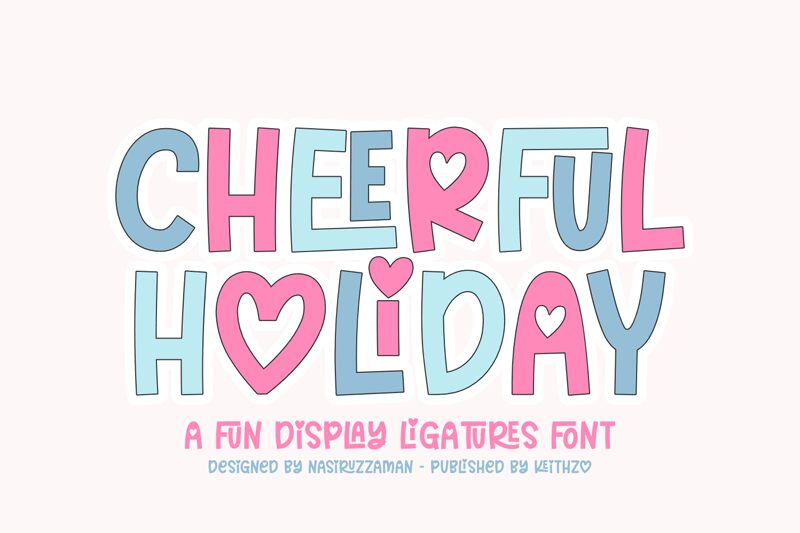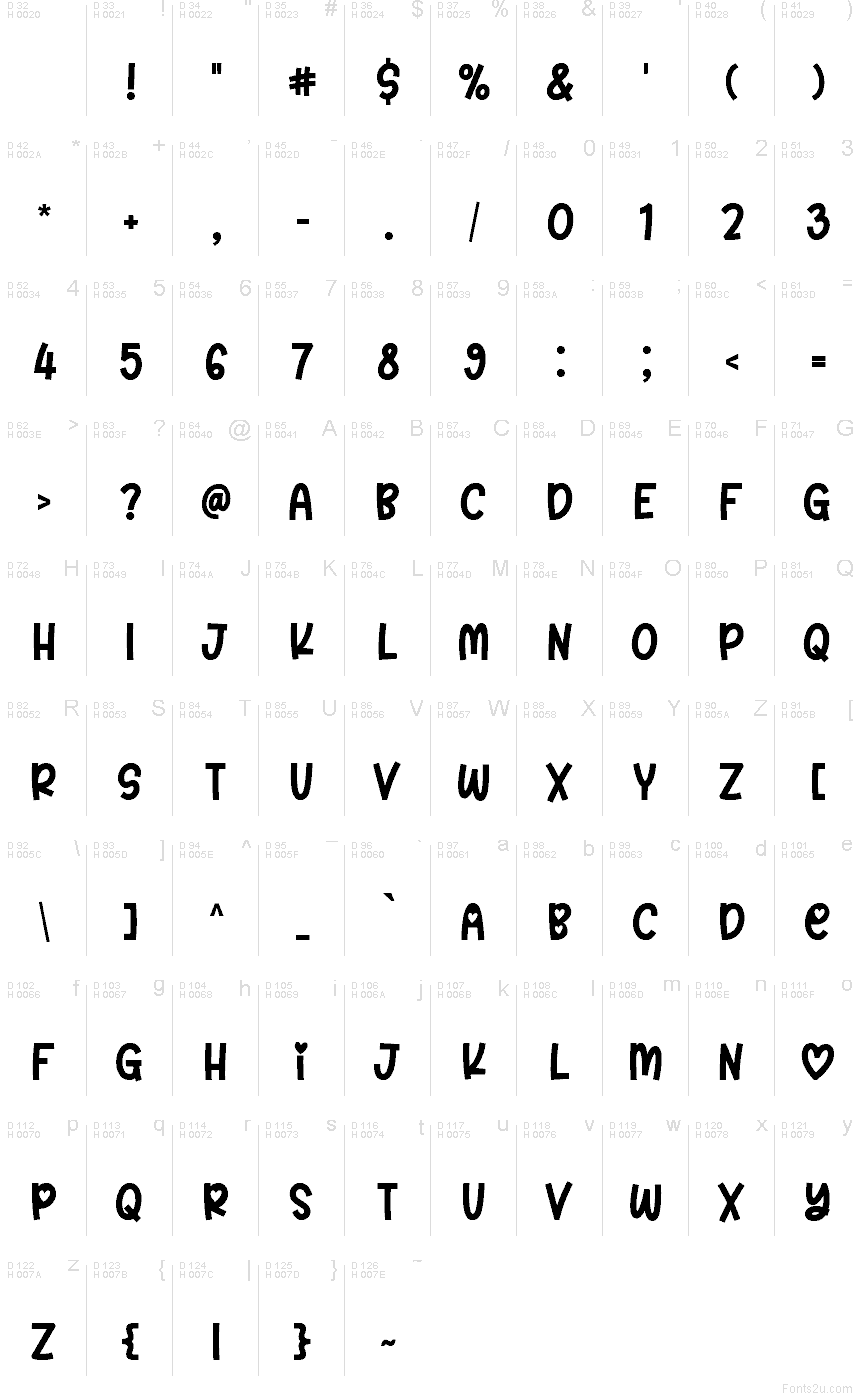
Cheerful Holiday font by Keithzo is a free decorative holiday typeface that turns every word into a playful love note. Rounded, chunky letters bounce with a hand-drawn feel, while heart-shaped counters and gentle curves give it a candy-sweet Valentine’s vibe. The strokes are bold and inky, so the text feels warm, friendly, and easy to read even at smaller sizes.
Using Cheerful Holiday, your designs instantly feel romantic and fun without getting overly formal. This free font works beautifully for Valentine cards, party invites, gift tags, Instagram posts, classroom crafts, and kids’ printables. Try pairing it with a simple sans serif for body text and let Cheerful Holiday handle the headlines at larger sizes so its quirky hearts and curvy rhythm can really shine.